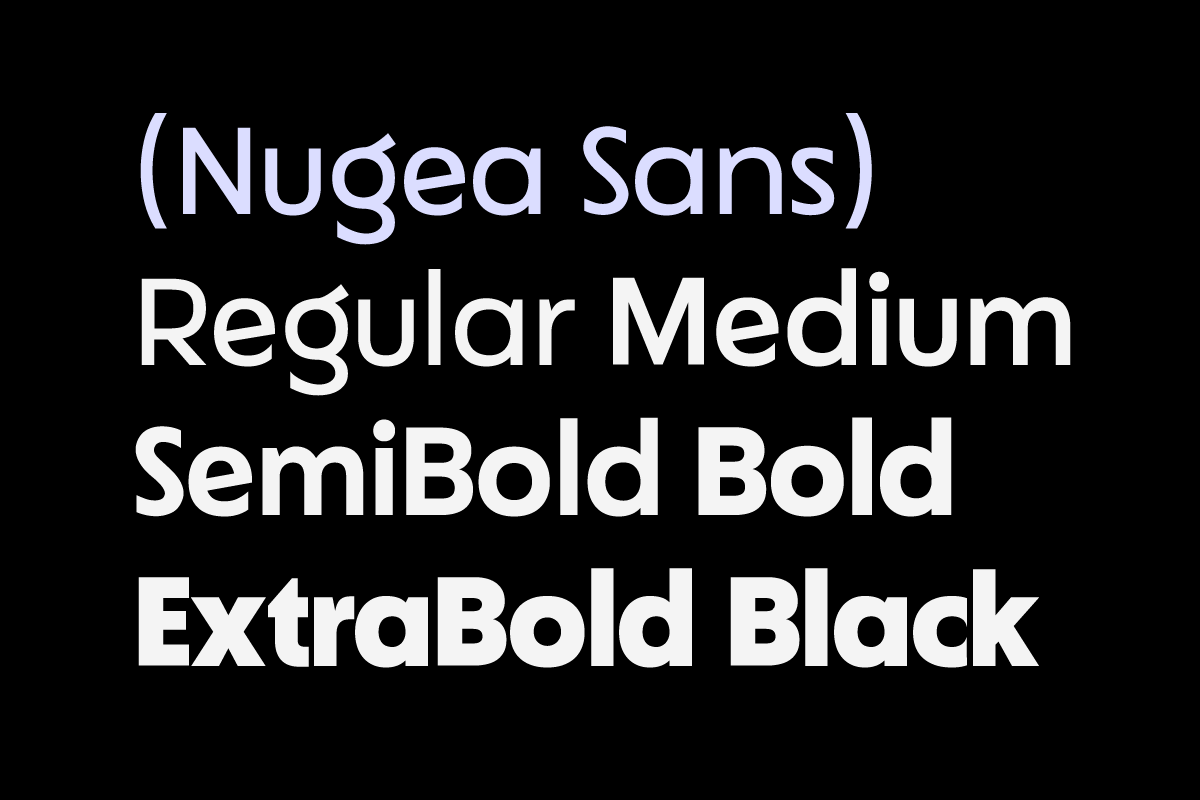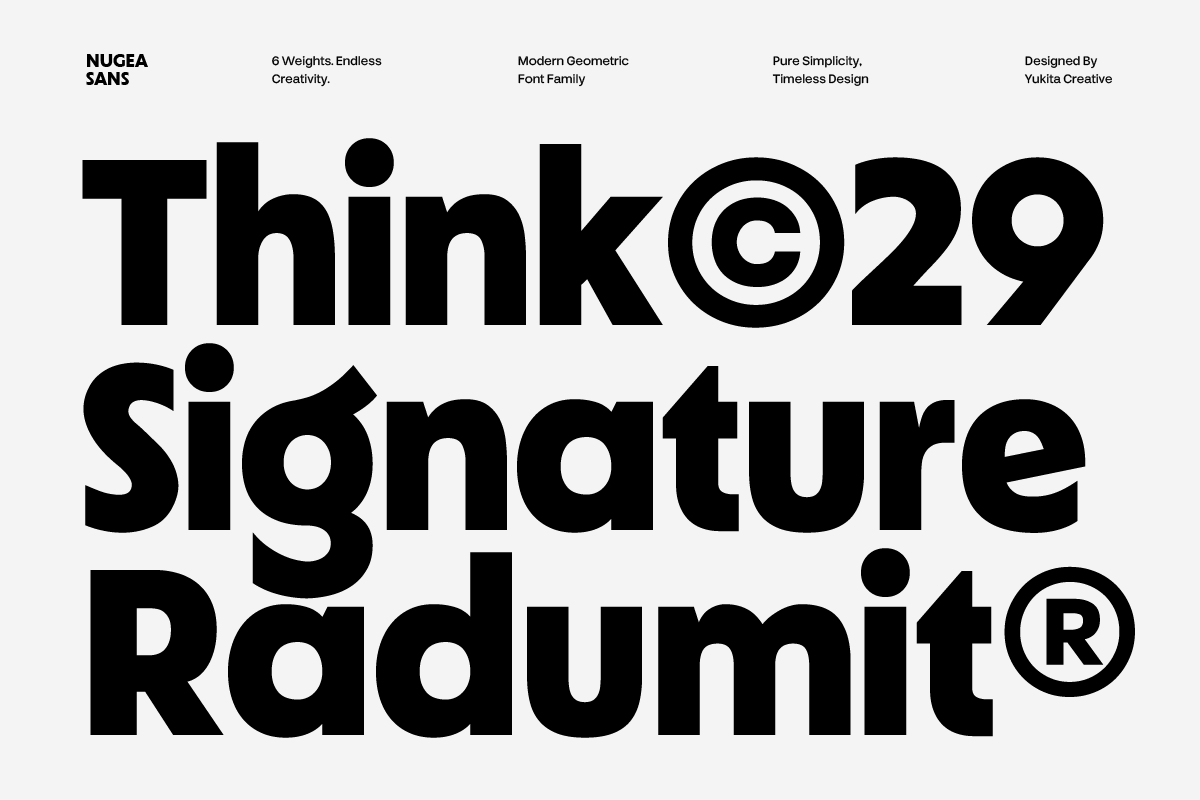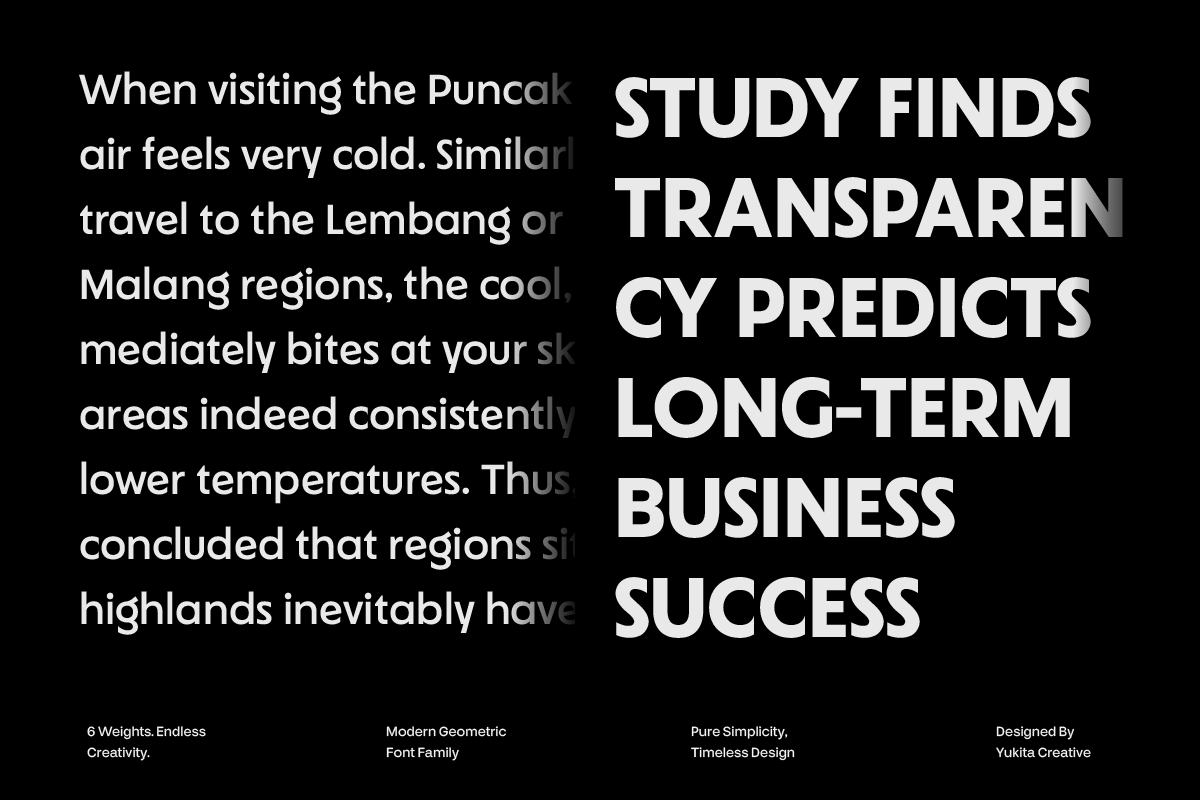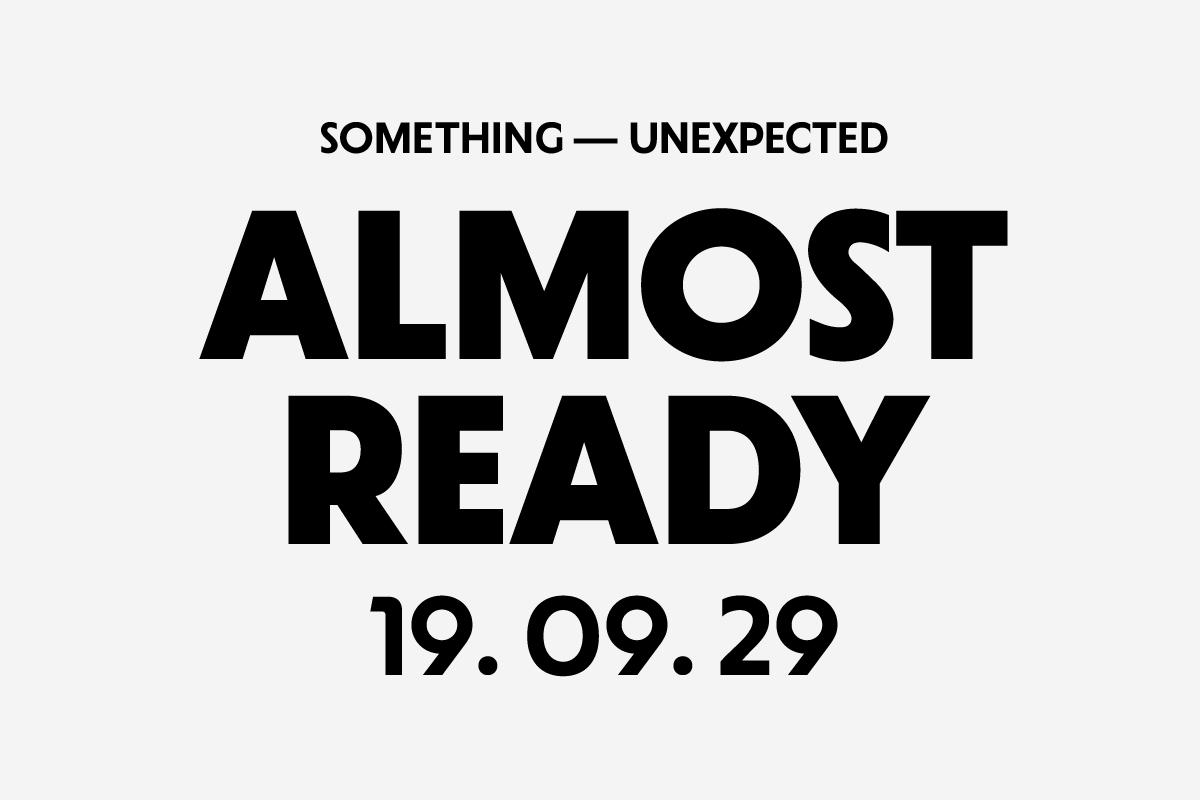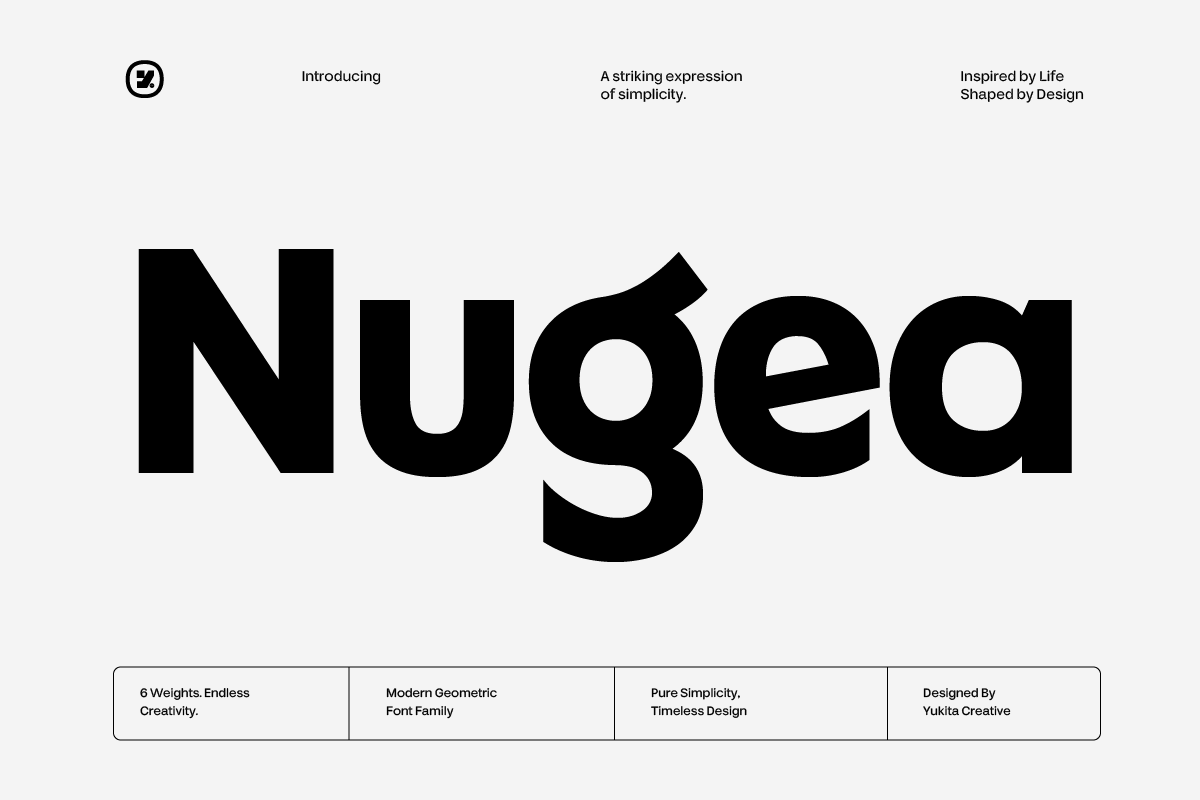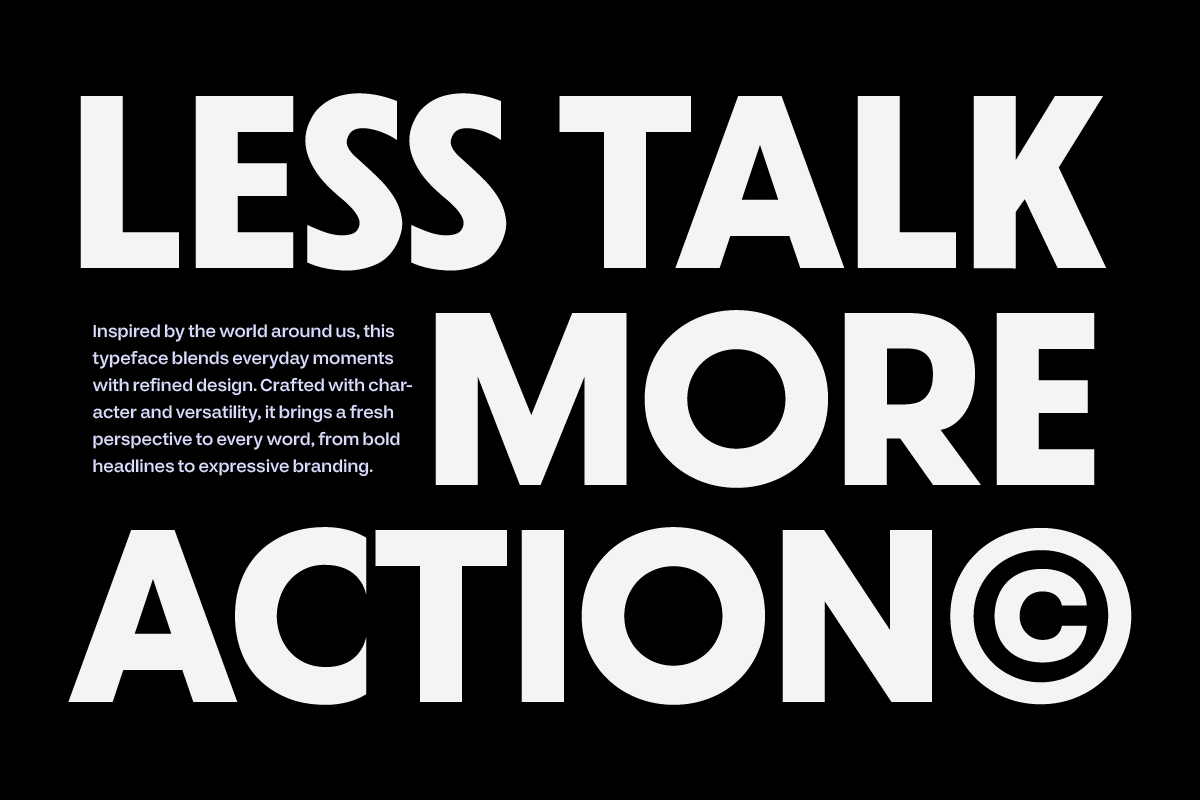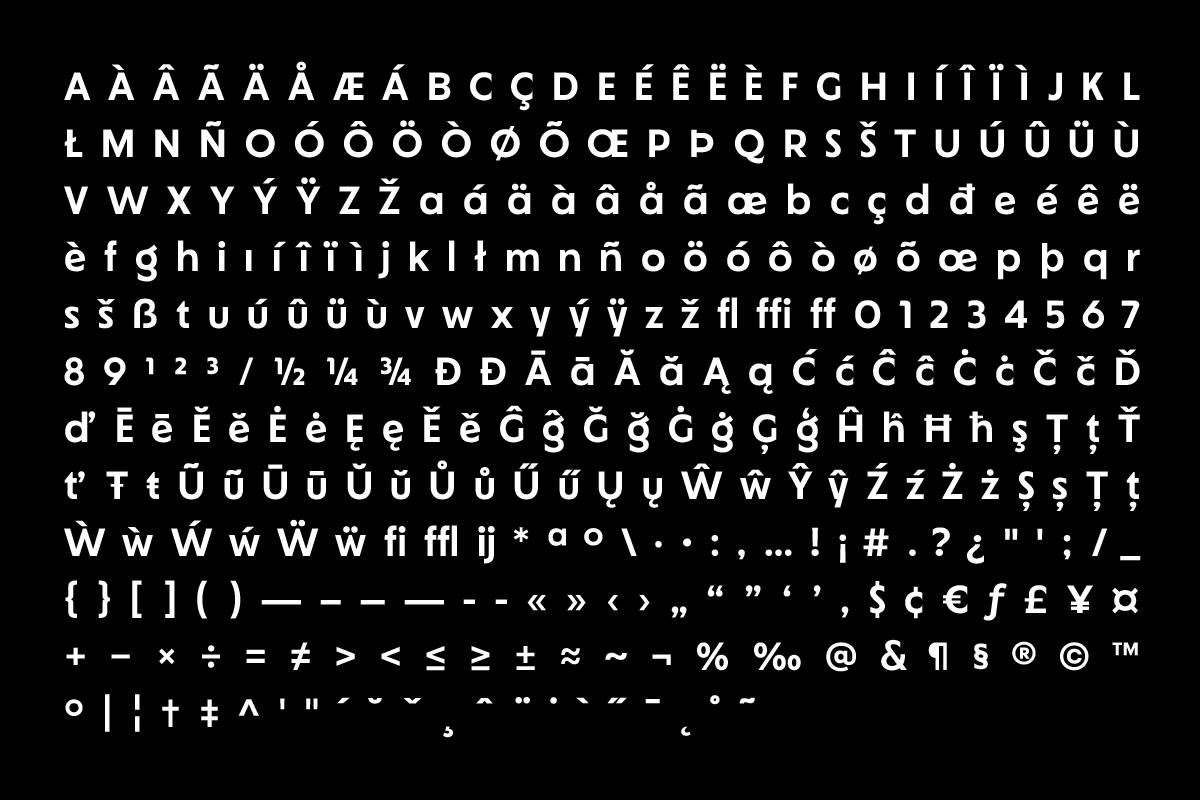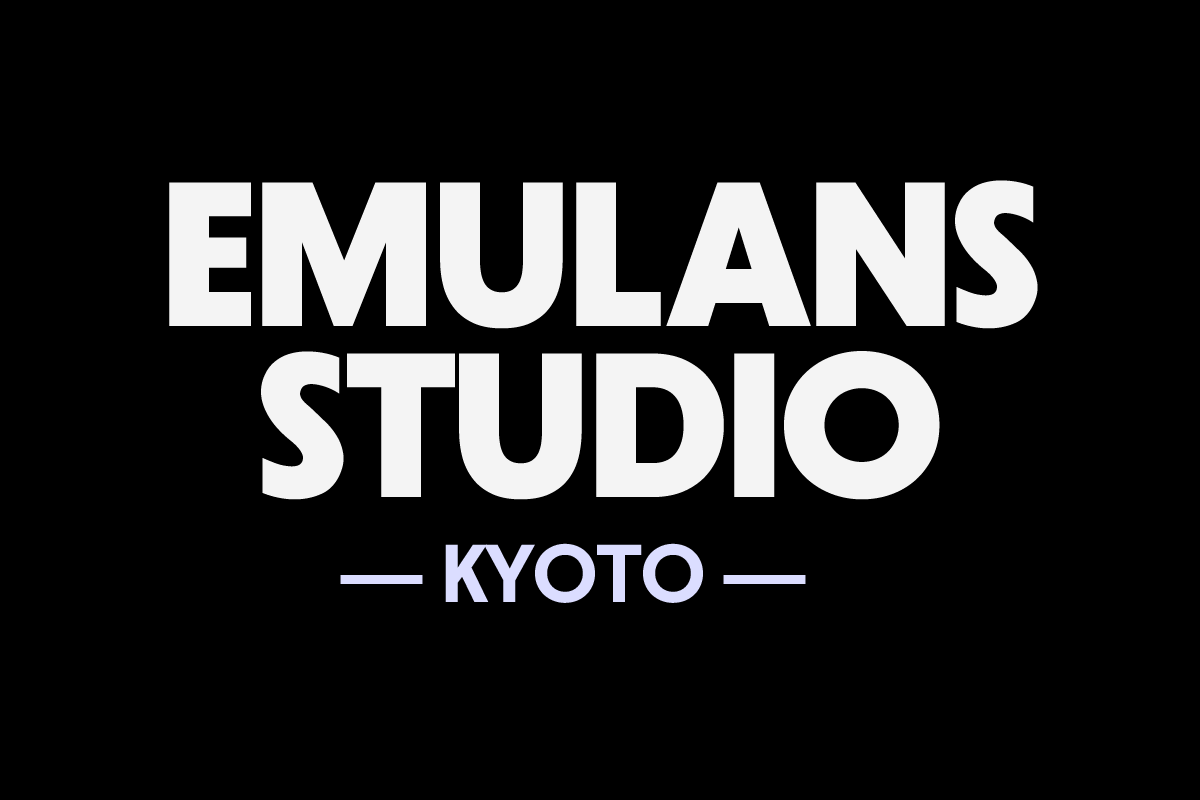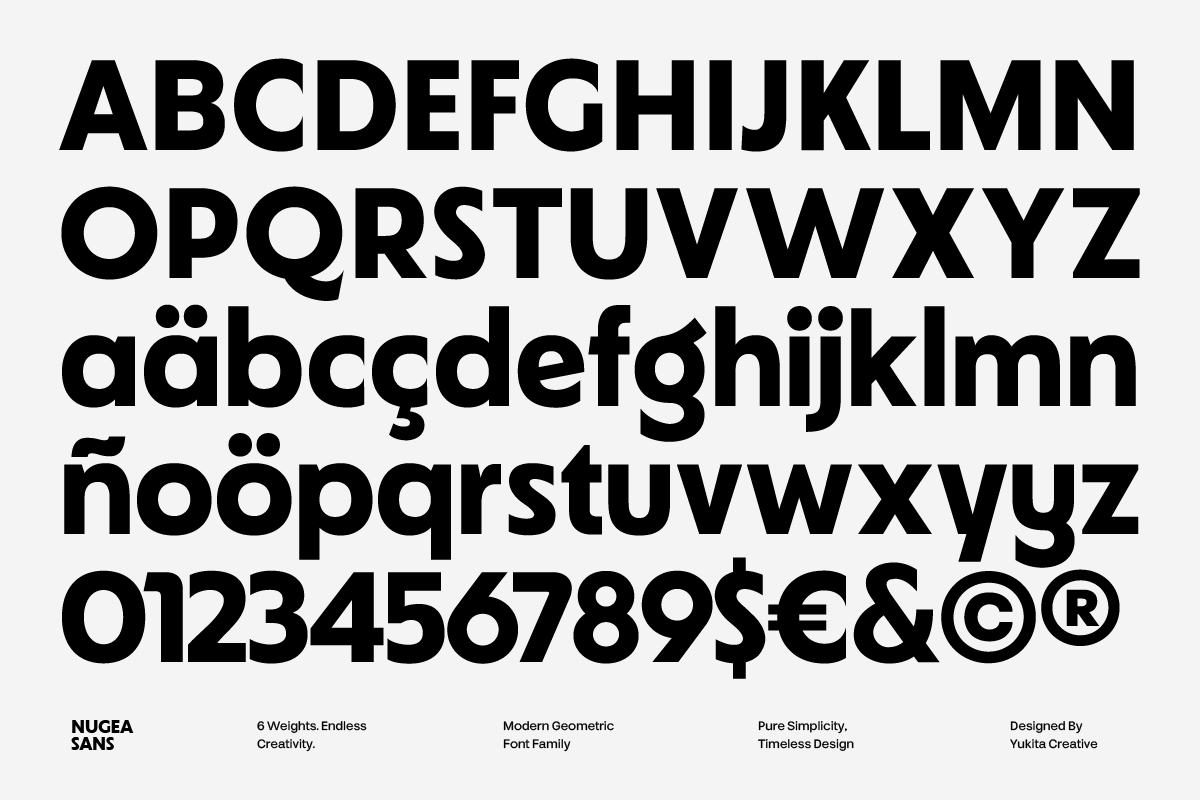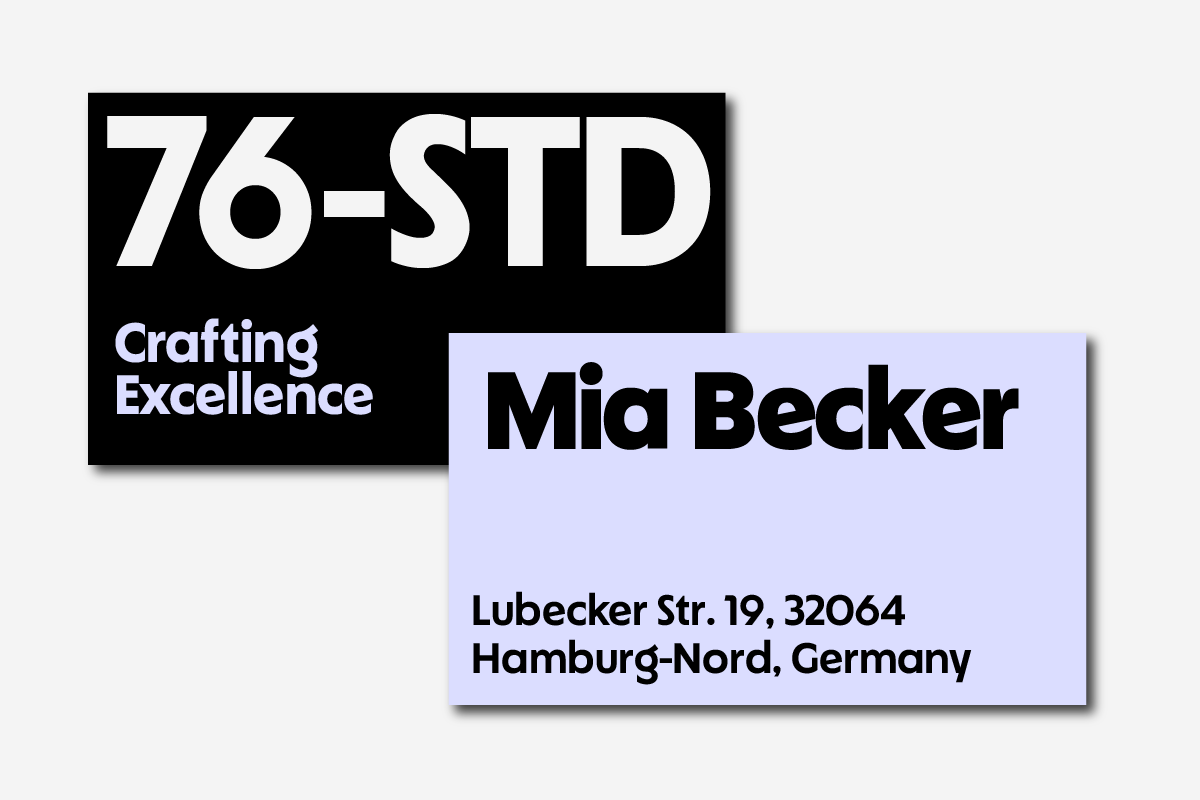
Nugea - Geometric Font Family
Nugea is a modern geometric sans-serif font family designed for clean, bold, and versatile visual communication. Featuring precise geometric forms and balanced proportions, Nugea delivers a contemporary look while maintaining excellent readability across different applications.
With 6 versatile weights, from Regular to Black, Nugea gives you the flexibility to create strong typographic hierarchy for both digital and print projects. Its clean character makes it especially suitable for branding, advertising, logos, posters, social media, packaging, headlines, and corporate design.
Nugea is built for designers who need a modern sans serif with a distinctive personality, professional appearance, and the flexibility to adapt to a wide range of creative projects.
6 Font Weights: Regular, Medium, SemiBold, Bold, ExtraBold & Black
Modern Geometric Sans Serif
Clean & Distinctive Letterforms
Uppercase, Lowercase, Numerals & Punctuation
Multilingual Support: a wide range of Latin-based languages
Perfect for Branding, Advertising, Logos, and Corporate Design